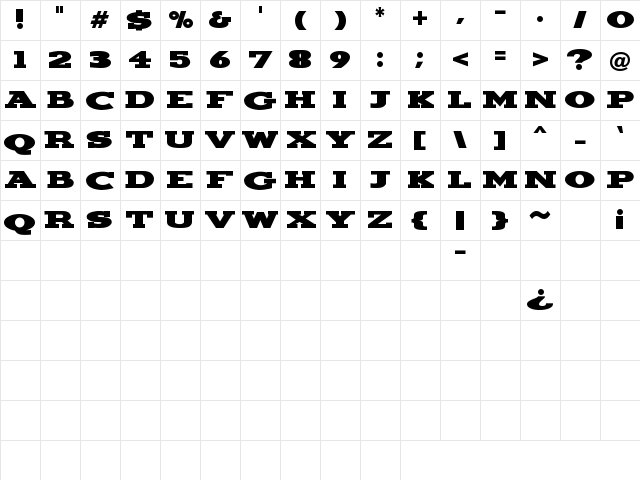
Face it! Regular
Design Context for Face it!
Face it! is a composed and adaptable typeface that performs quietly and consistently across a wide range of design contexts.
Pro Tip: Use Face it! in both headline and body roles to test its range before committing to a single application.